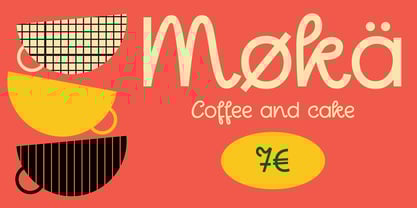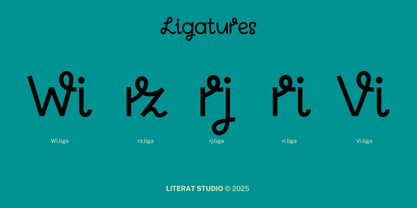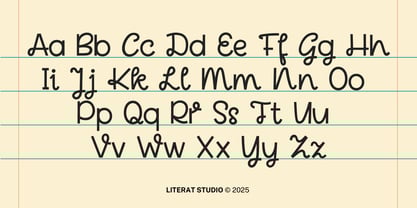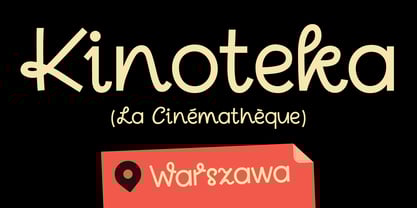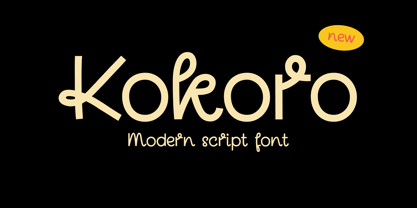
Kokoro
by Literat Studio
The Kokoro Font Family was designed by Ada Napiórkowski and published by Literat Studio. Kokoro contains 1 styles.
Kokoro is a script font inspired by Polish Graphic Design of the 1960s. 270 languages supported, includes uppercase and lowercase.
Literat is a solo project that began as a hobby. I've been designing fonts since 2015. Type design is a natural extension of my illustration practice, a space where I explore personality, rhythm, and charm through letterforms. My fonts are playful, warm, and often a little bit childish. Originally from Poland, I am currently based in Tallinn, Estonia.